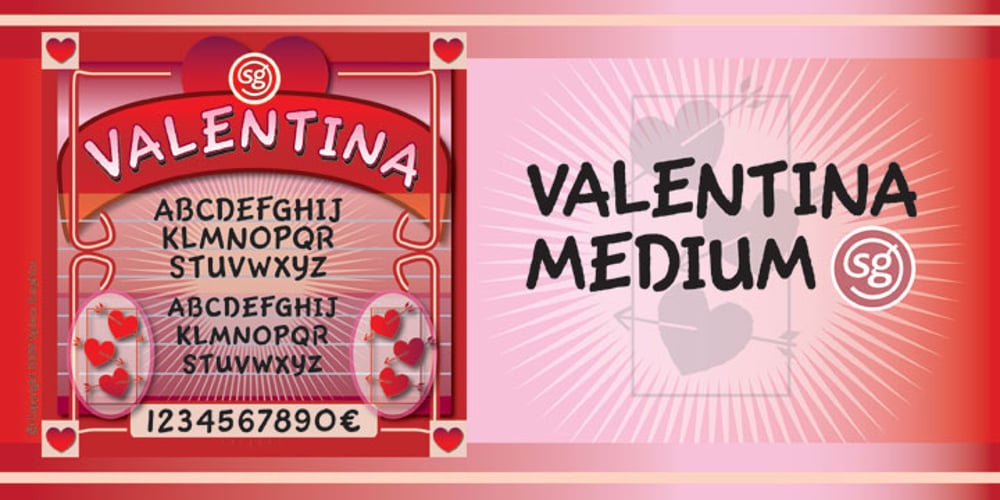
Valentina SG Font Family was designed by Jim Spiece and published by Spiece Graphics. Valentina SG contains 1 styles and family package options. Here’s what happens when your trusty felt tip marker takes a trip to cartoonland. Each of Valentina’s plump characters has a rough and splotchy texture. Some letters even bounce up and down like a 3-year old. As cartoon faces go, Valentina is a bit on the imperfect side. But that’s normal for a funny face. Use it in a variety of comical situations. Make convincing captions under your own artwork or design greeting cards with it. You can even blow it up to huge sizes to create a wild and crazy look. Valentina Medium is now available in the OpenType Std format. Some new characters have been added to this OpenType version as stylistic alternates. This advanced feature works in current versions of Adobe Creative Suite InDesign, Creative Suite Illustrator, and Quark XPress. Check for OpenType advanced feature support in other applications as it gradually becomes available with upgrades.